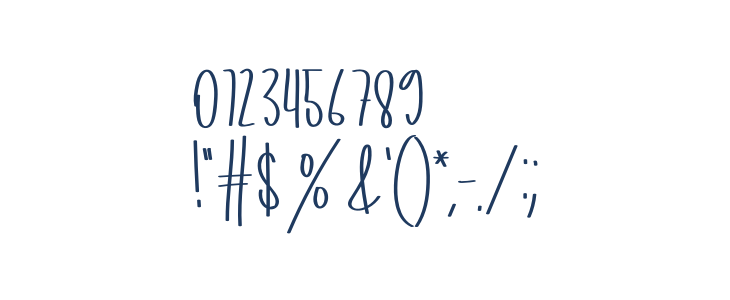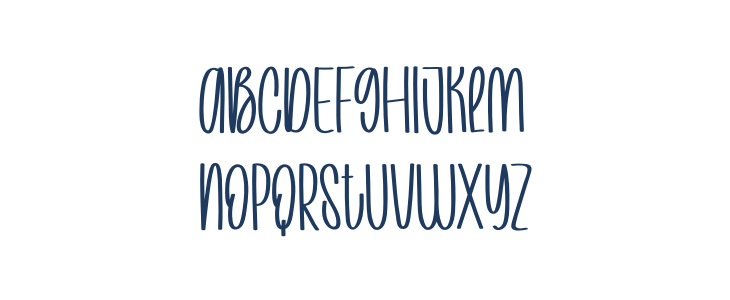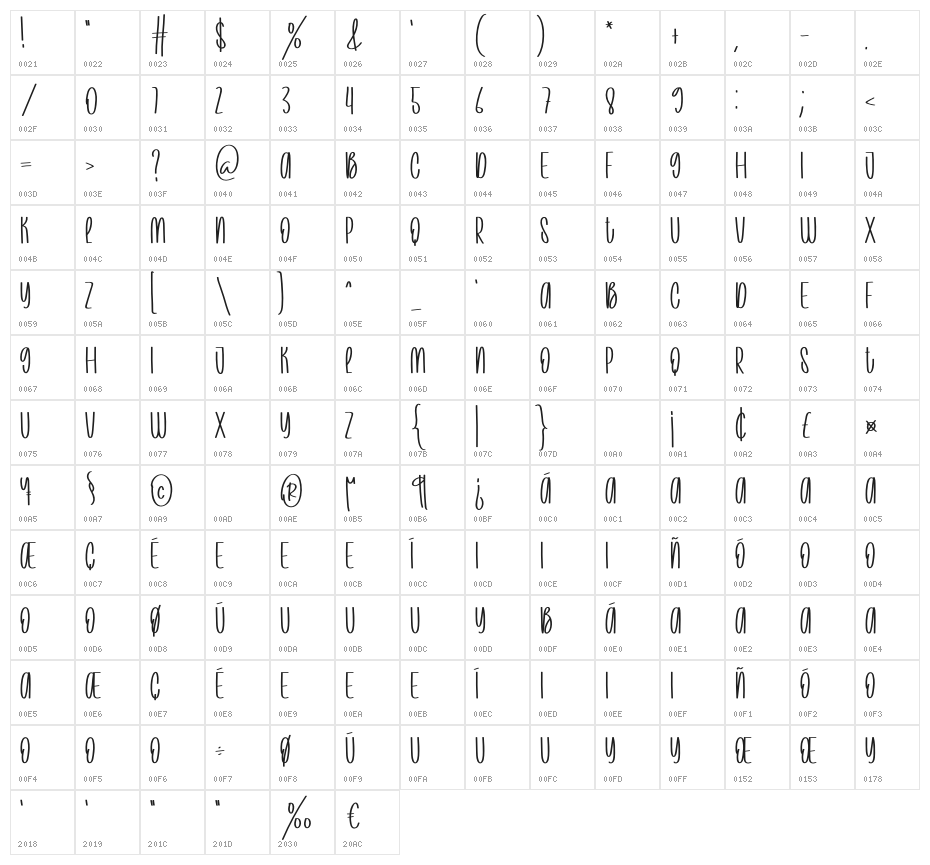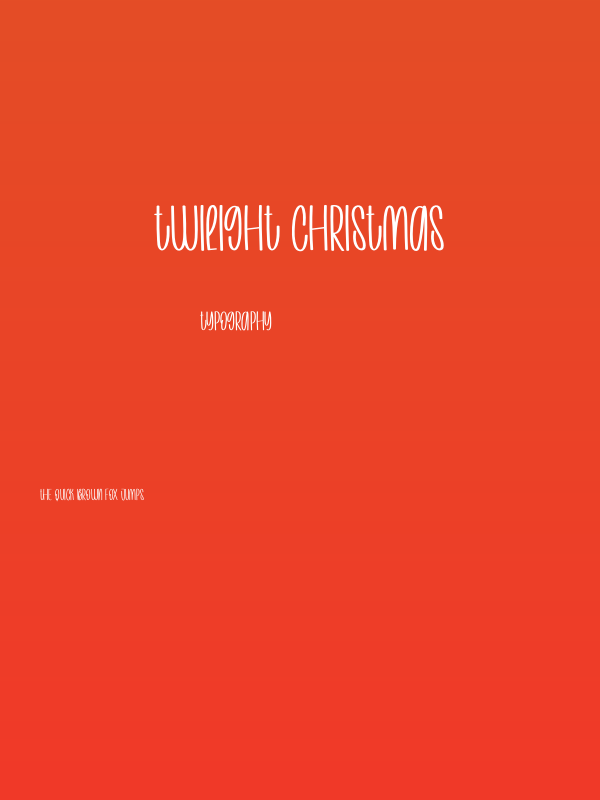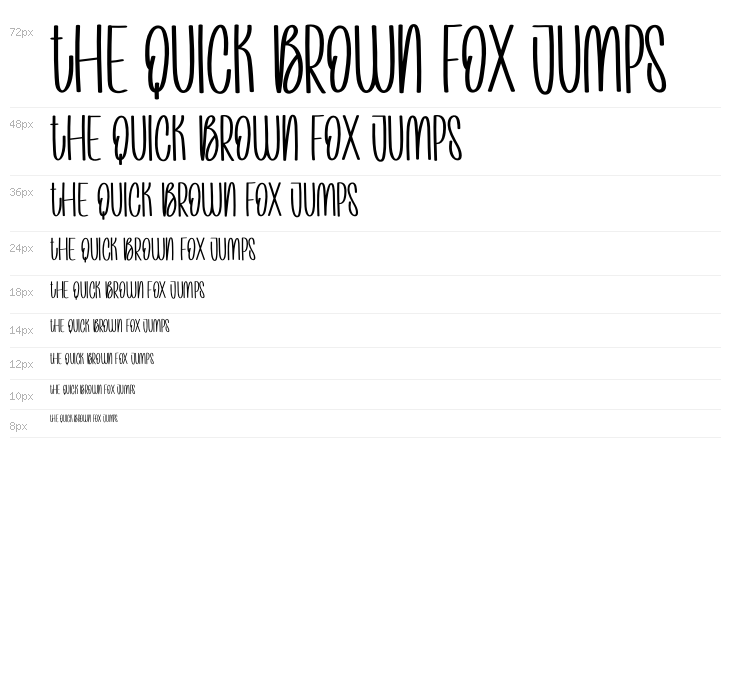
Twilight Christmas Font
Twilight Christmas Description
A tall, narrow handwritten script with playful, rounded terminals and consistent stroke width, giving a whimsical and informal appearance. The characters are closely spaced with a high x-height and minimal contrast.
| Overall Style | Decorative, Playful, Whimsical |
| Use Case | Headlines, Logos, Invitations, Posters |
| Proposed Projects | Greeting cards, holiday invitations, playful branding, childrenΓ’β¬β’s books, festive posters. |